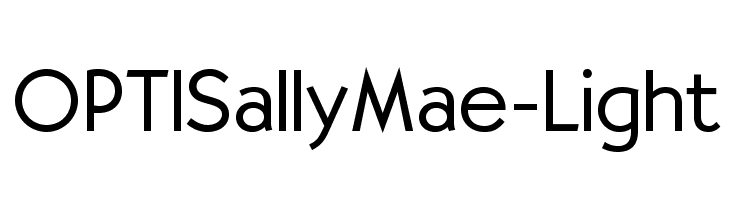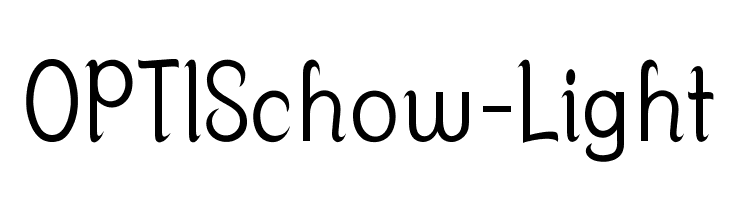
A modern sans-serif font with geometric shapes and uniform strokes.
A modern, geometric sans-serif typeface with a clean and professional look.
A bold, three-dimensional font with a shaded effect for impactful designs.
Bold, condensed sans-serif font with high contrast and modern appeal.
A smooth, flowing script font with a cohesive and elegant appearance.
A classic, elegant font with a slight slant and moderate contrast.
A classic serif font with elegant strokes and refined proportions.
A bold, high-contrast serif font with a classic yet commanding style.
An elegant cursive font with swash elements, perfect for adding sophistication.
A playful, handwritten-style font with whimsical curves and light weight.